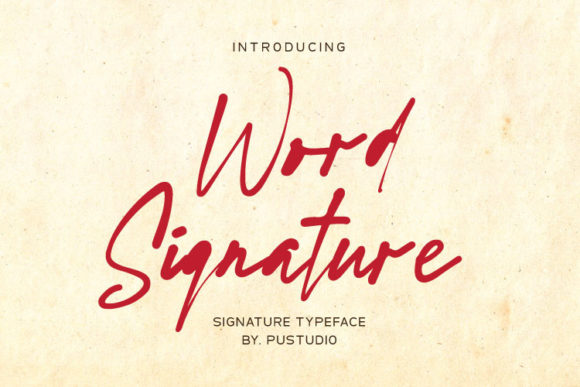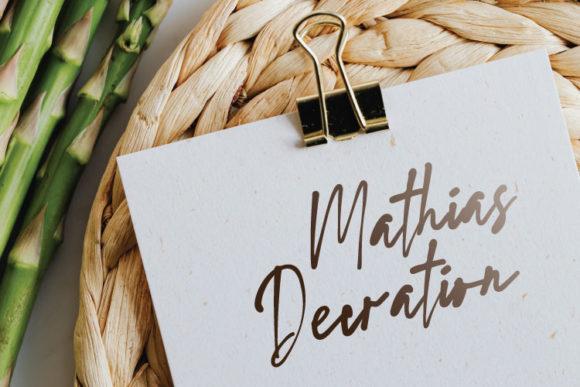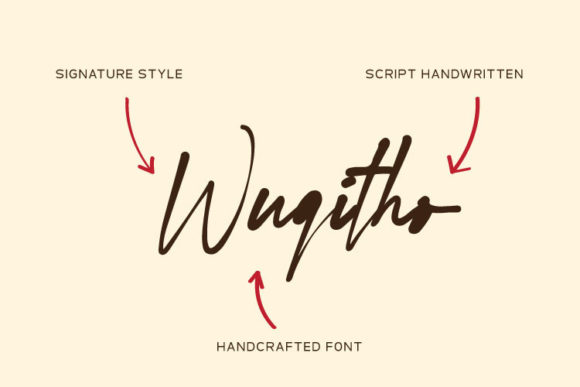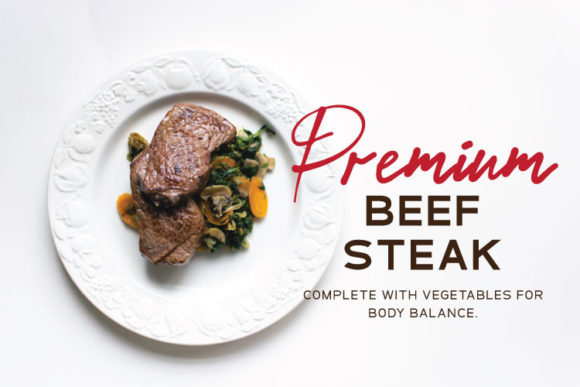
About Word Signature Font
Word Signature is a lovely script font featuring charming, playful characters that seem to dance along the baseline. Add this font to your most creative ideas, and notice how it makes them stand out!